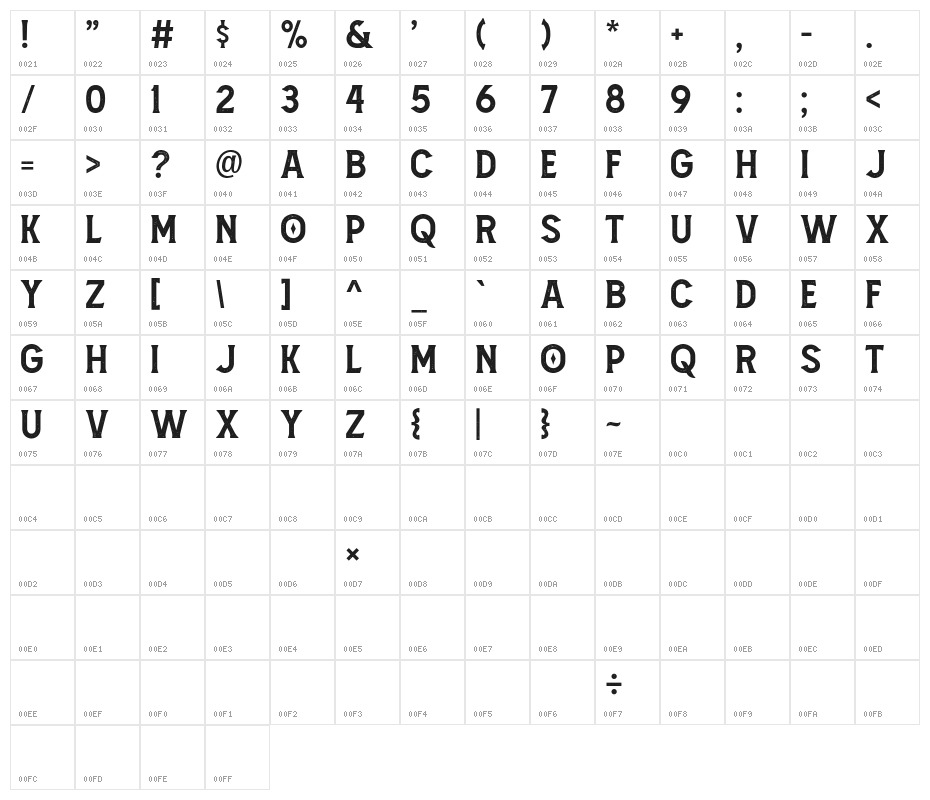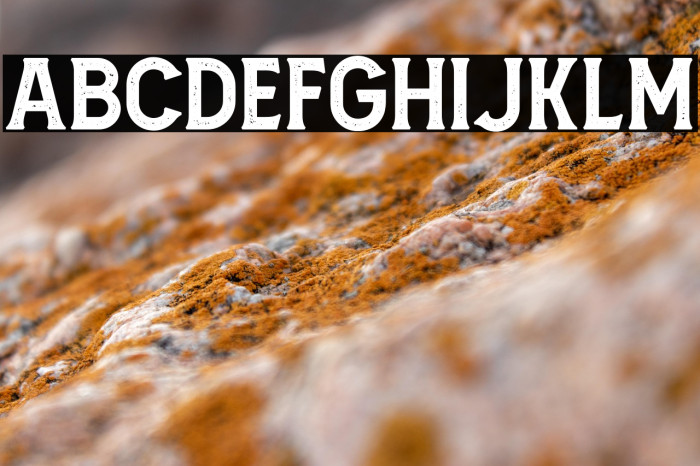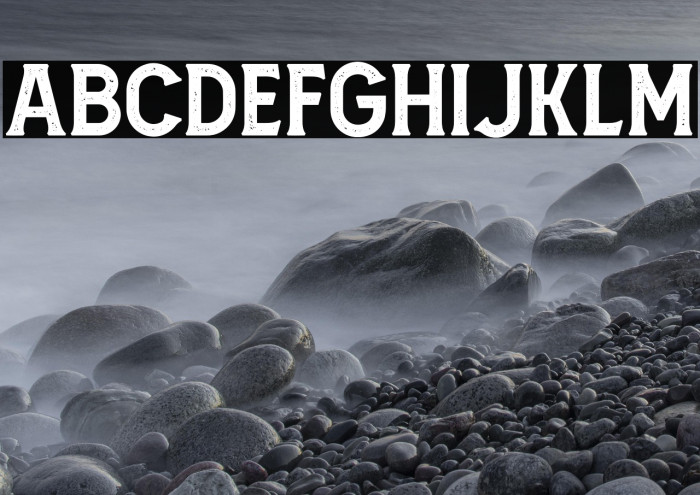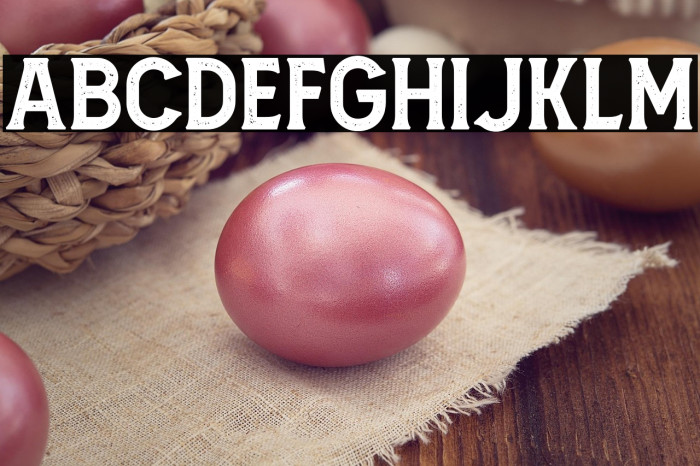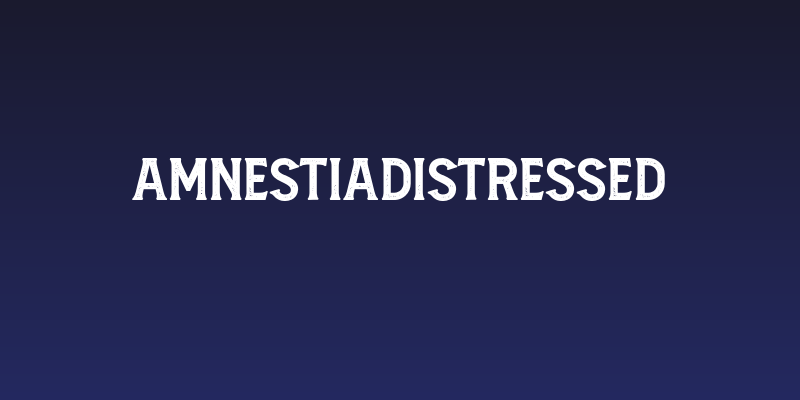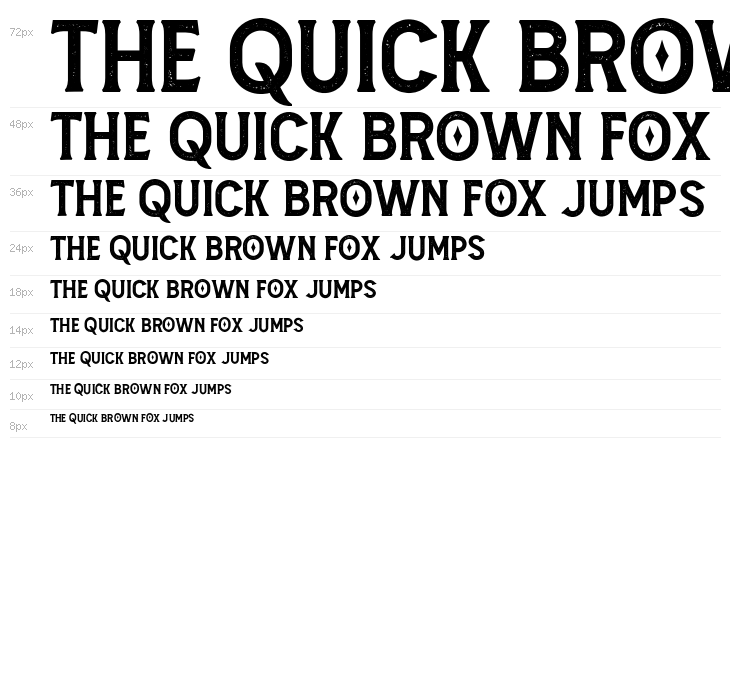
AmnestiaDistressed Font
AmnestiaDistressed Description
This font exhibits a distressed, textured appearance, giving it a rugged and vintage feel. The characters are bold and slightly condensed, with a consistent texture that mimics wear and tear, adding a unique character to the typeface. The uppercase letters are prominent and well-defined, while the numerals and special characters maintain the same distressed style, ensuring uniformity across all glyphs. This font is ideal for projects that require a rustic or industrial aesthetic, such as posters, branding, or packaging designs. Its bold presence makes it suitable for headlines and attention-grabbing text.
| Proposed Projects | Ideal for vintage-themed posters, branding, packaging, and headlines. |